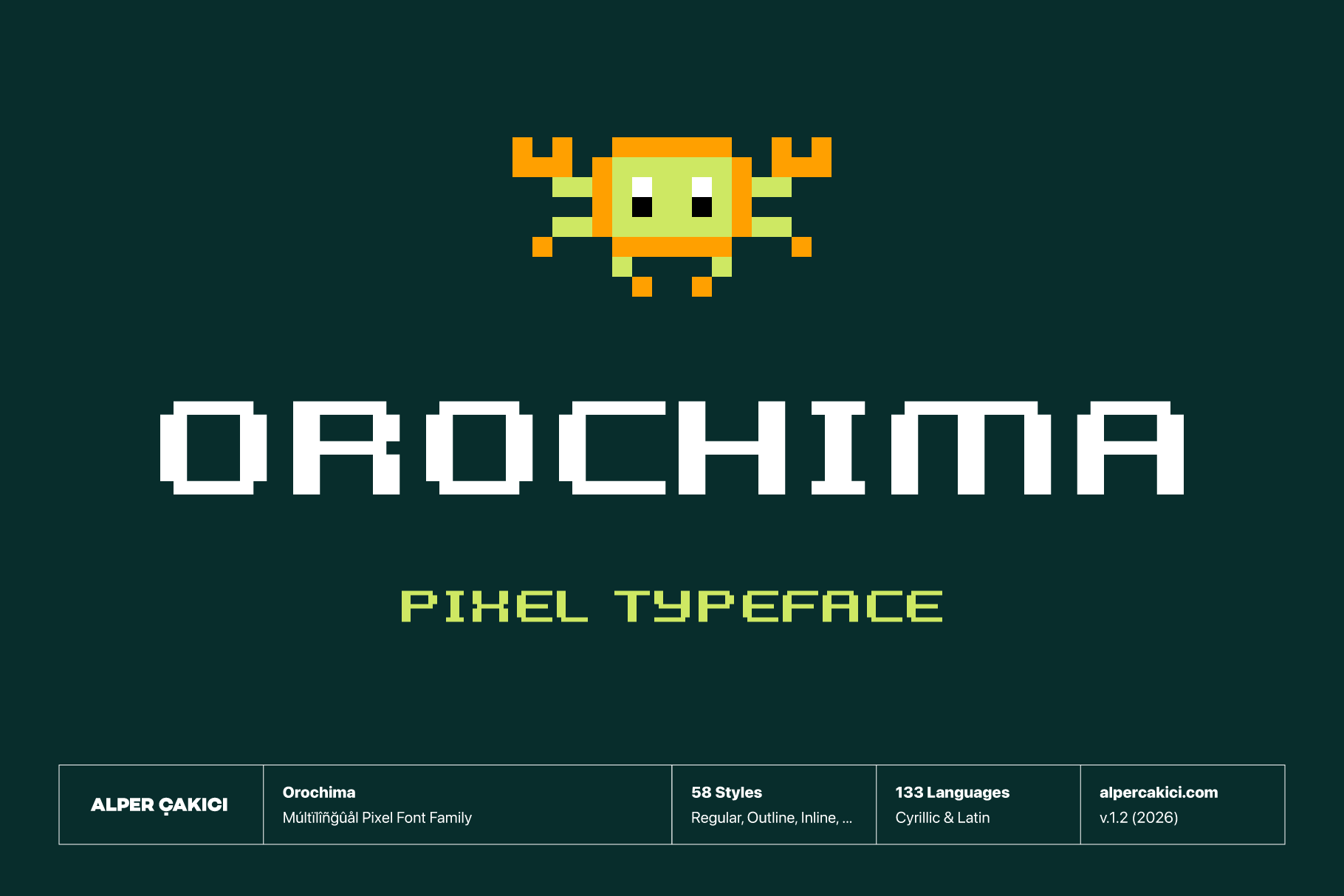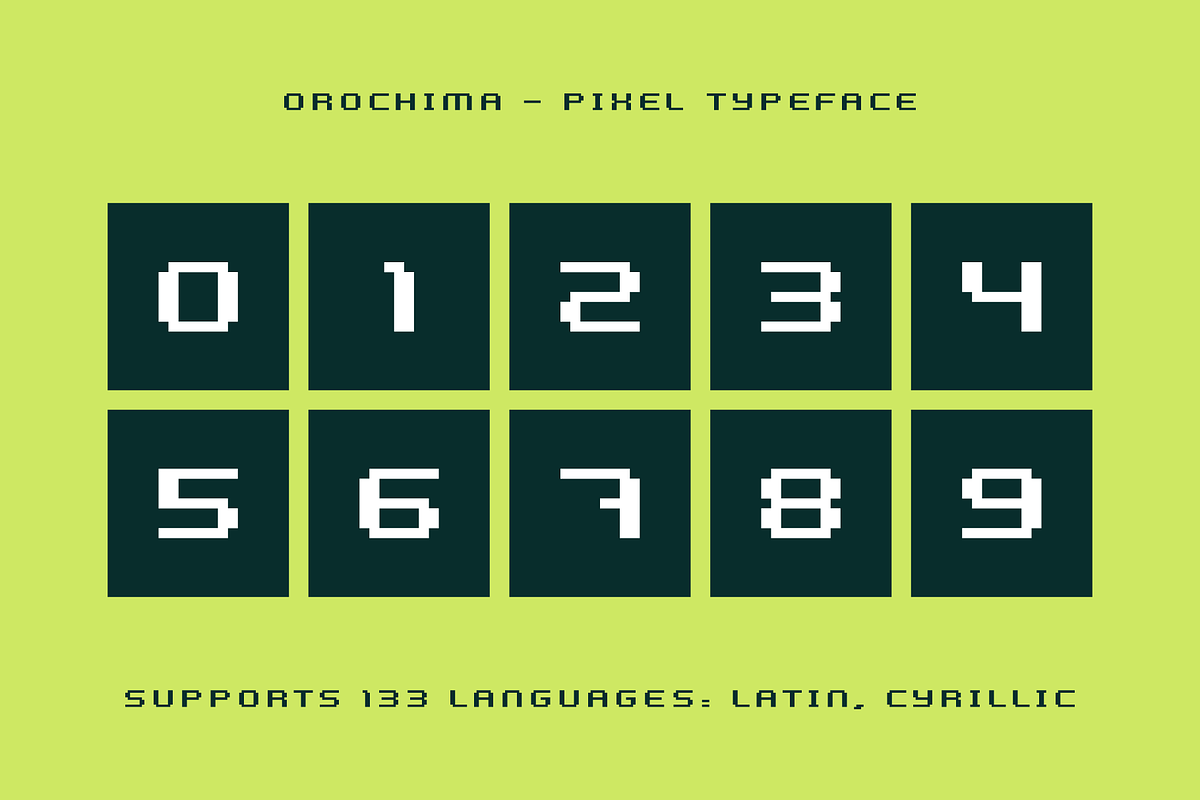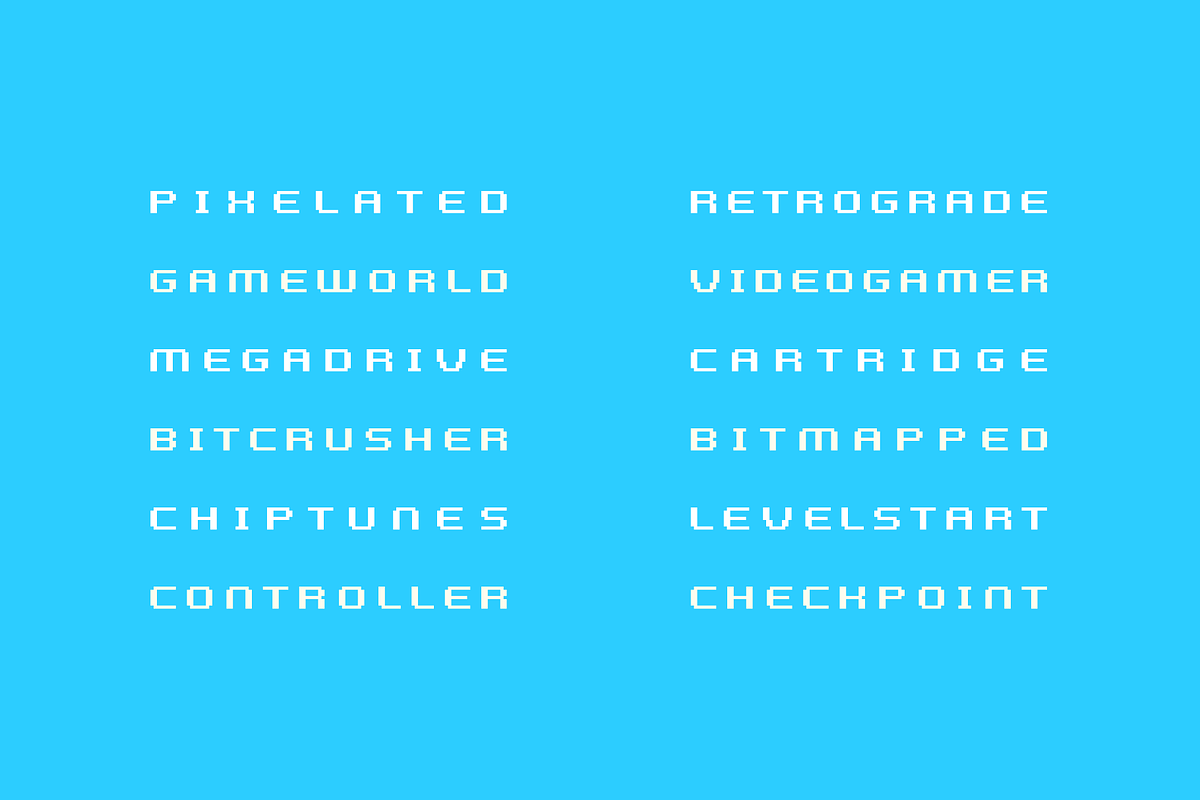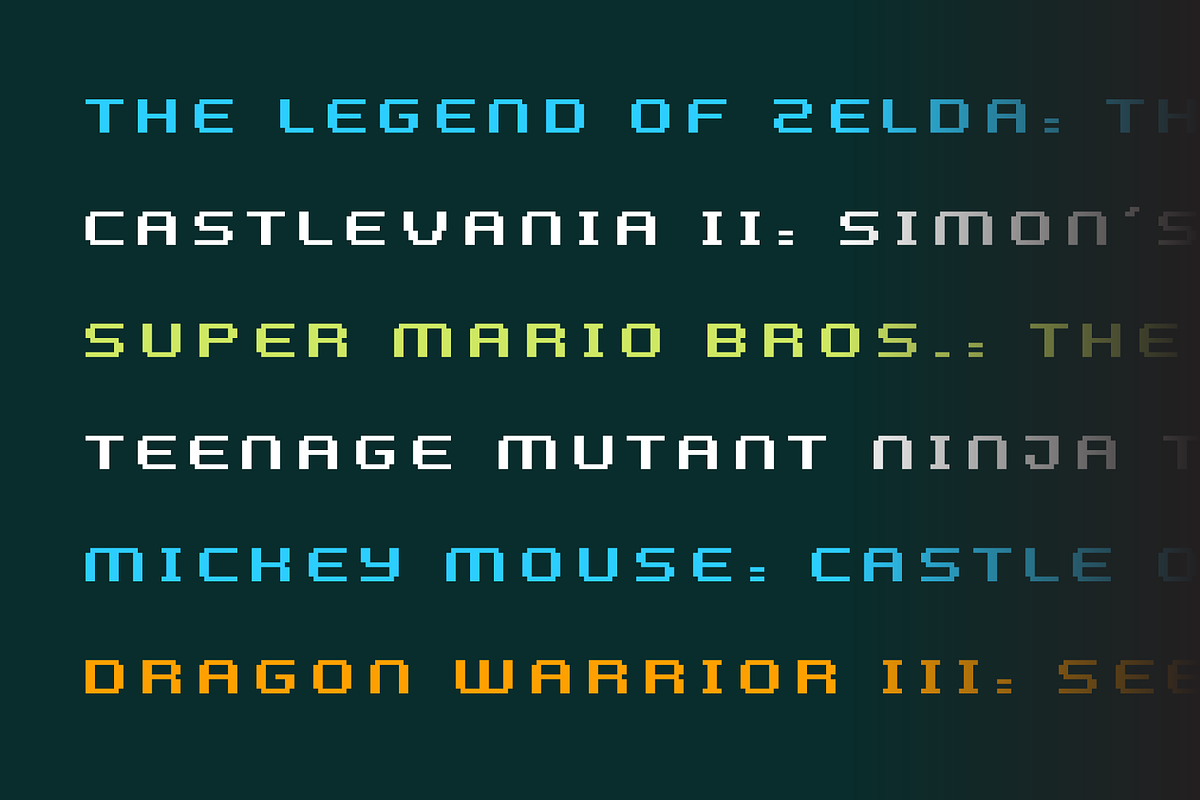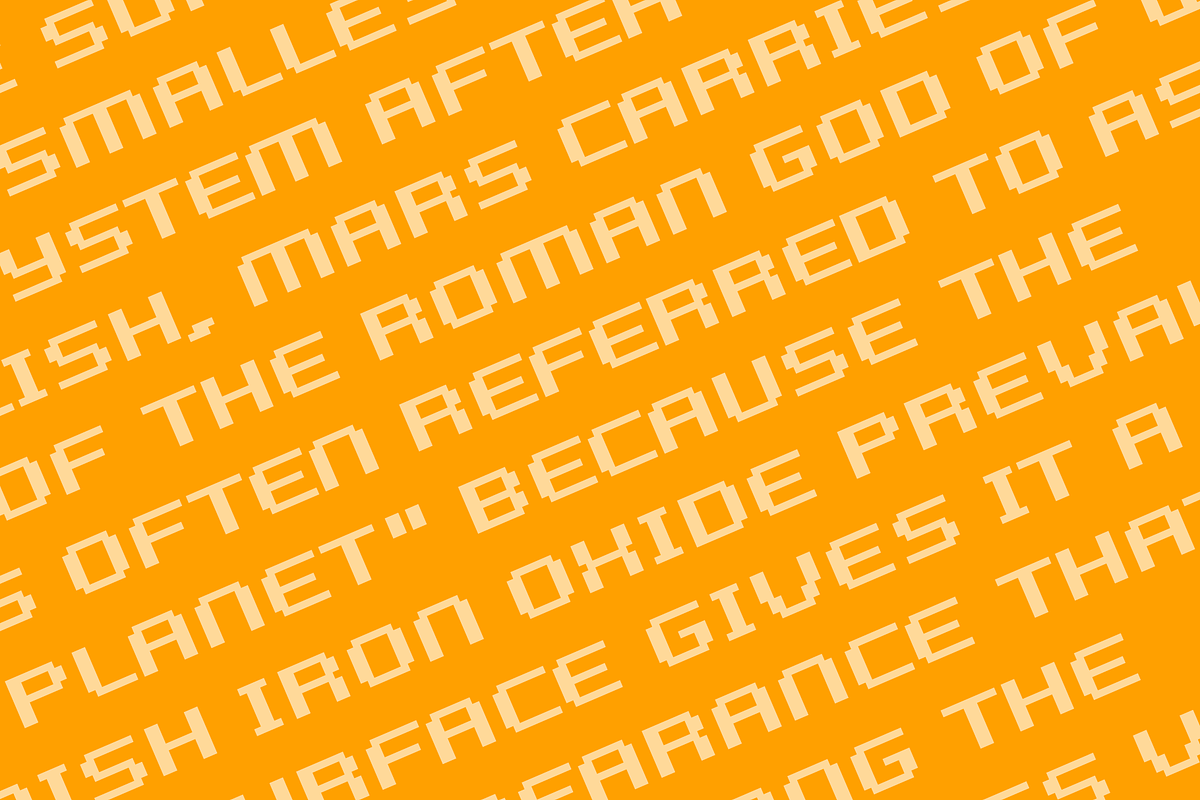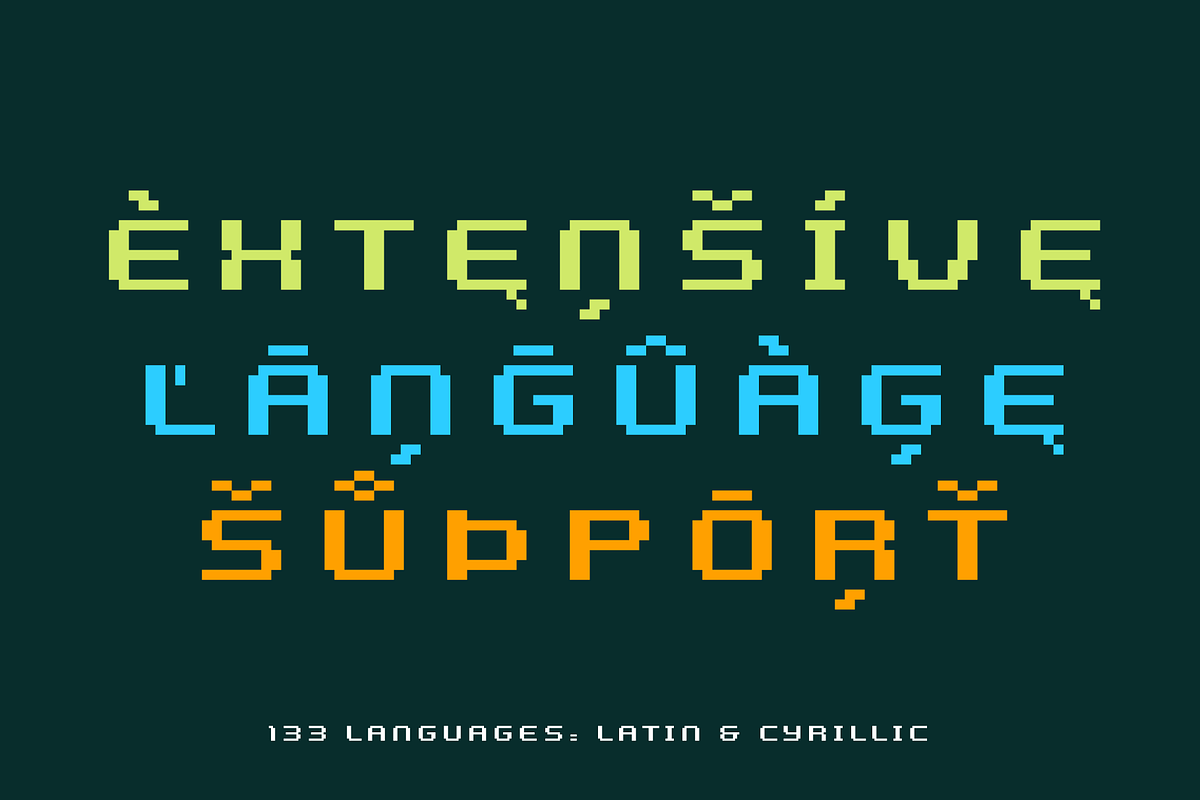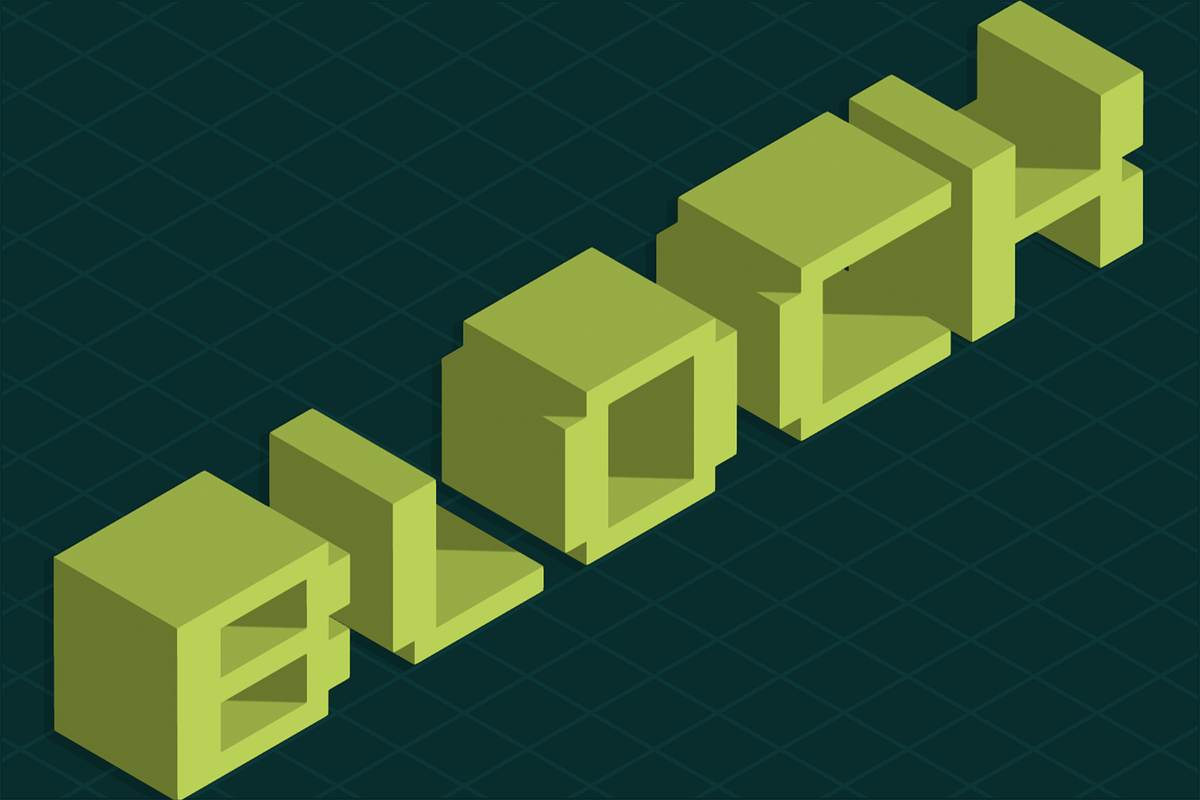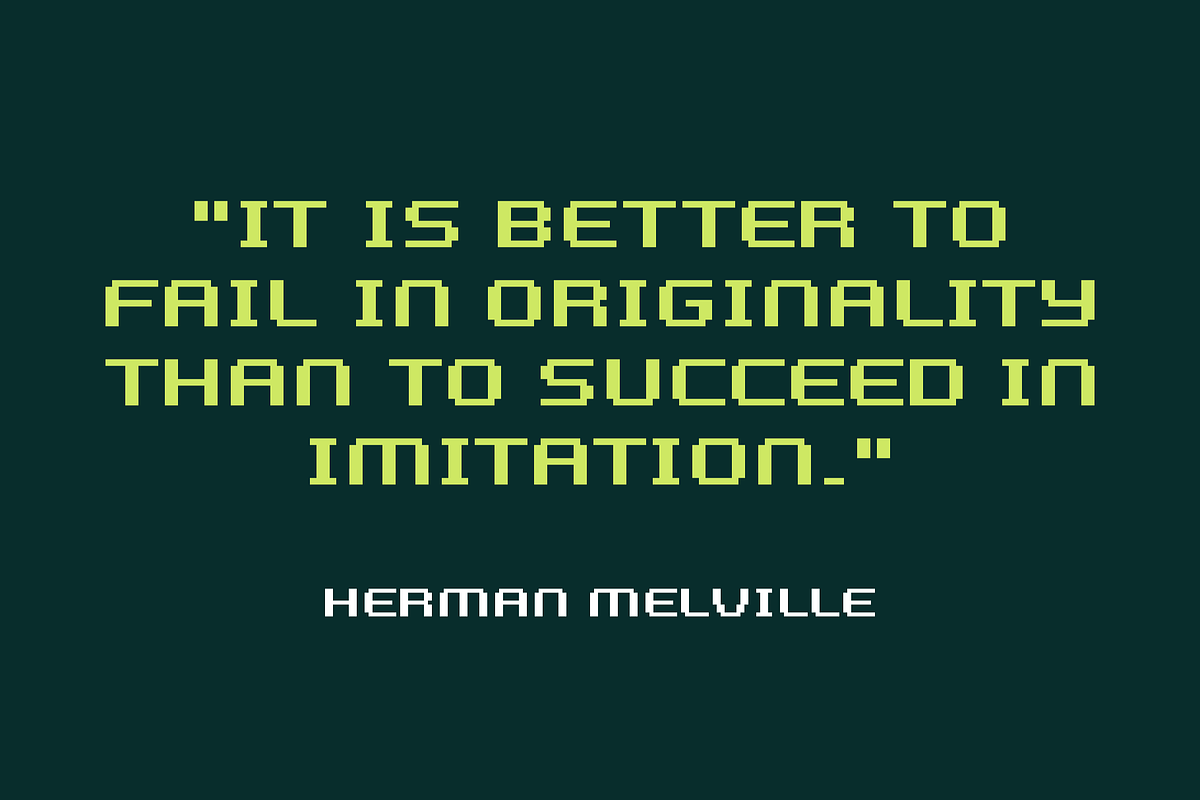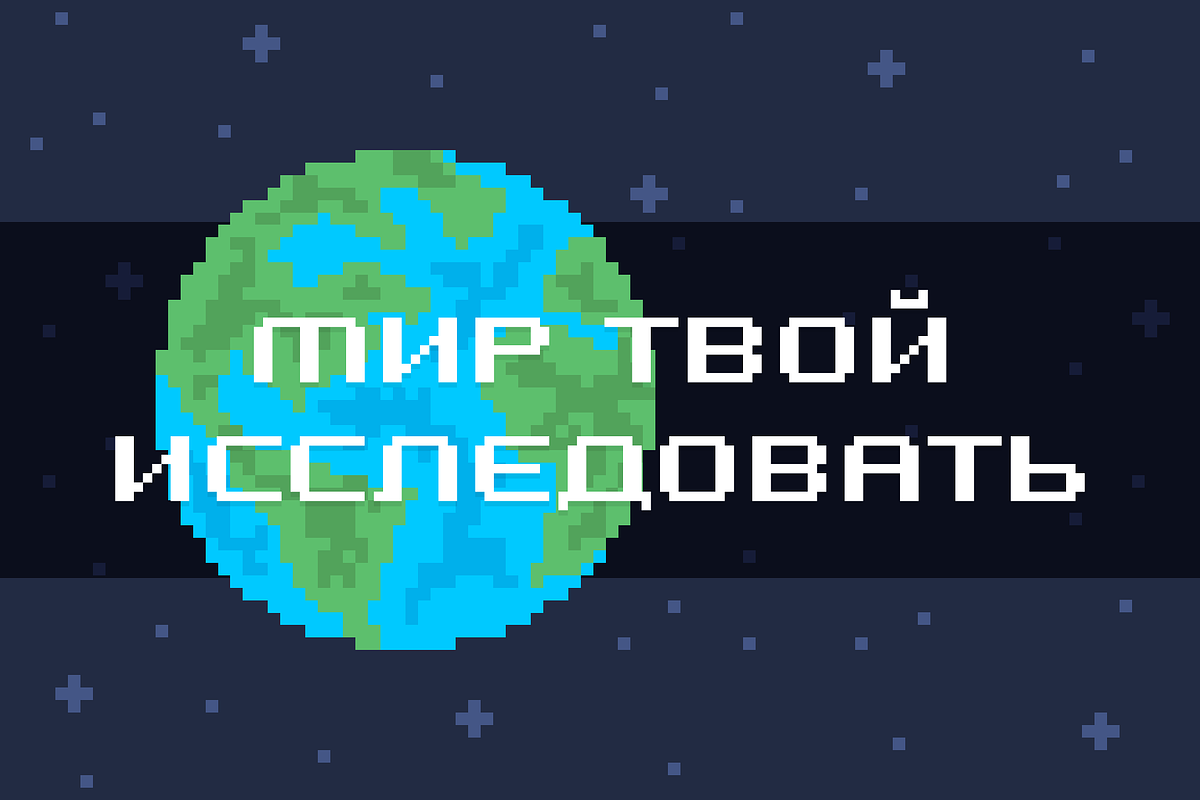
Orochima - Pixel Typeface
Orochima is a bold and versatile pixel typeface built on a precise 100px grid system, merging retro digital aesthetics with modern expressive forms. Designed for both Latin and Cyrillic scripts, it supports a wide range of languages, making it suitable for global typography needs.
The family features an extensive set of styles, ranging from clean and geometric (Regular, Angular, Circular) to more experimental and textured variants (Brush, Rough, Noise, Pencil, Eroded). Inline, Outline, Rimmed, and Rounded variations expand its visual flexibility, while italics across nearly all styles add dynamic contrast and motion.
Orochima is ideal for display use, gaming visuals, posters, branding, digital art, and UI design where a pixel-inspired yet highly customizable type system is needed. Its modular structure allows designers to mix styles for layered compositions, creating unique typographic identities.